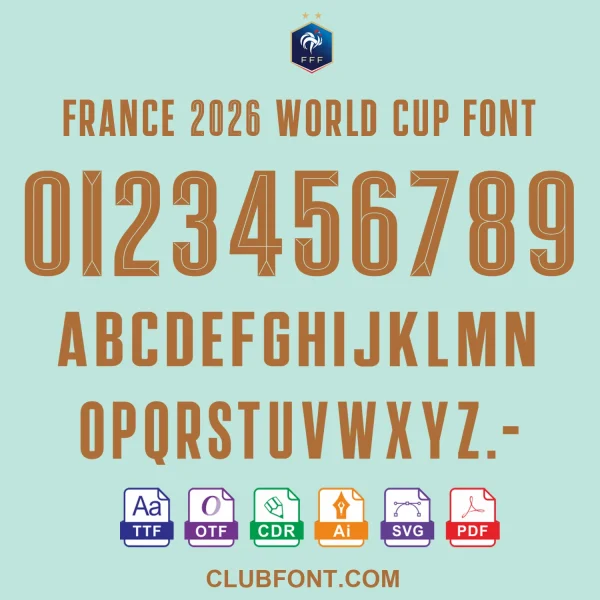
France 2026 World Cup Away Jersey Font – TTF, OTF & Vector Files
Get the France 2026 World Cup Away Font Download – the ultimate, fully authentic solution for recreating the iconic typography of the French national team’s 2026 away jersey. Every letter, number, and symbol in this font pack is meticulously recreated to match the exact design used by Les Bleus in the 2026 World Cup tournament, down to the smallest details of jersey lettering, player numbering, and official crest typography.
This official-style font set is built for football fans, graphic designers, custom jersey printers, DIY creators, print-on-demand sellers, and social media content creators who want to add a professional, tournament-accurate touch to their projects. Whether you’re designing custom fan jerseys, creating World Cup-themed posters, making personalized fan gifts, editing social media graphics, or working on DIY sticker projects, this font pack gives you full creative control over the iconic France 2026 away kit style.
France 2026 World Cup Away Font: Designed for Every Creator
Unlike generic football fonts, our pack is tailored to replicate the unique aesthetic of France’s 2026 away jersey – from the sharp, modern letter shapes to the official number styling used by players like Mbappé and Griezmann. It’s not just a font file: it’s a complete design tool for bringing official World Cup style to any project.
• Complete Character Set: Full A-Z uppercase/lowercase letters, 0-9 numbers, special characters, and punctuation, so you can recreate any player name, number, or team text exactly as it appears on the official jersey.